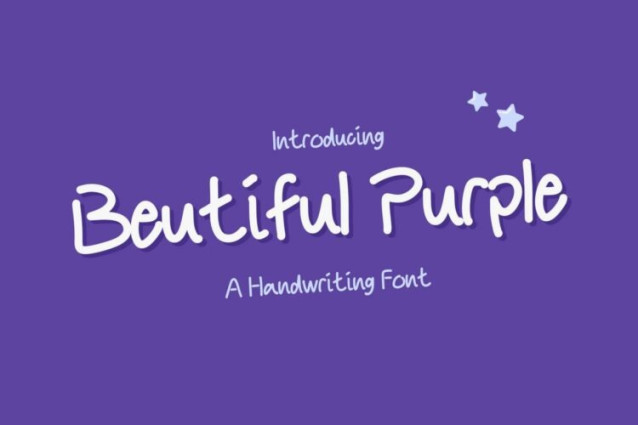
Beutiful Purple Font
Beutiful Purple Font is a simple and friendly handwritten font. Its natural and unique style makes it incredibly fitting to a large pool of designs. The only limit is your imagination!